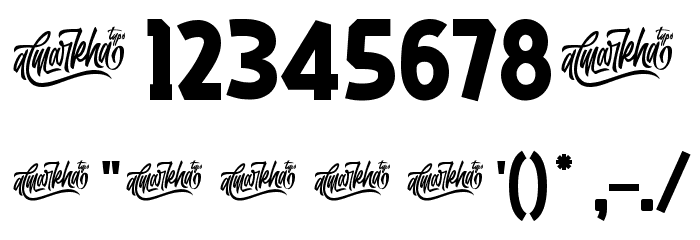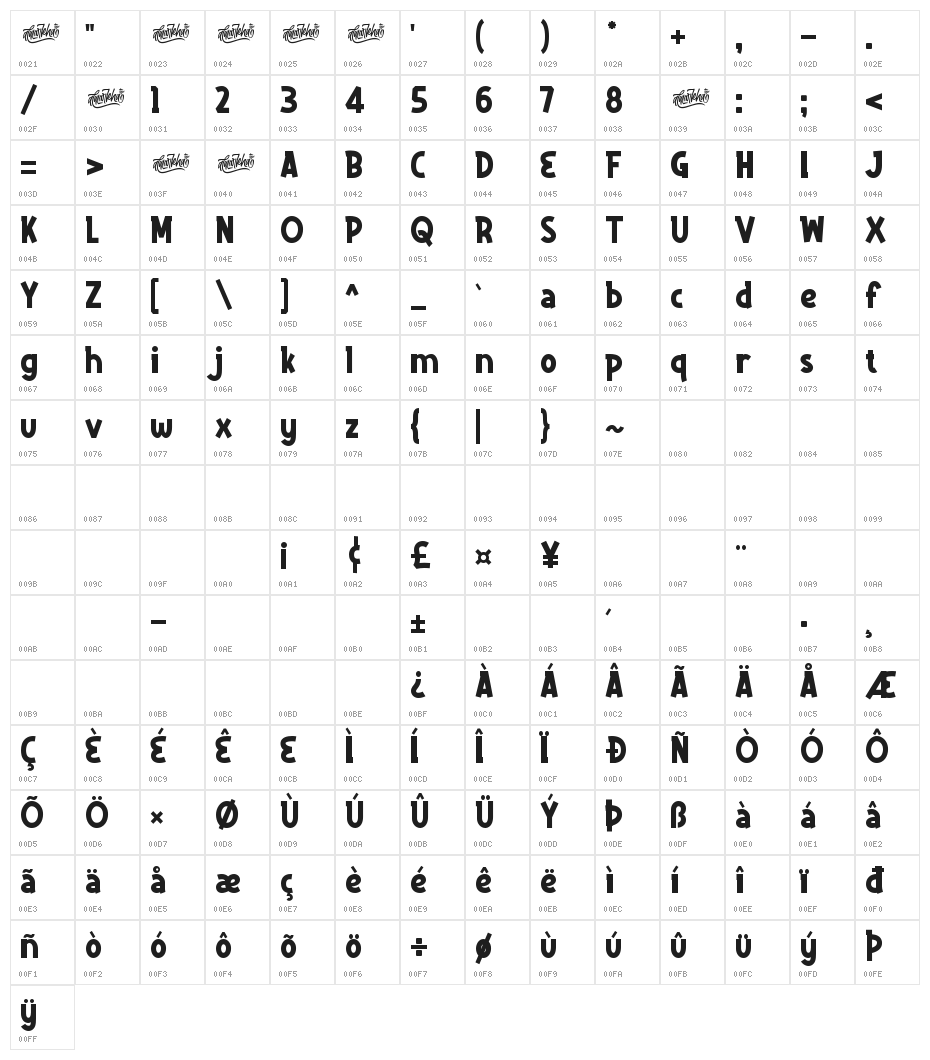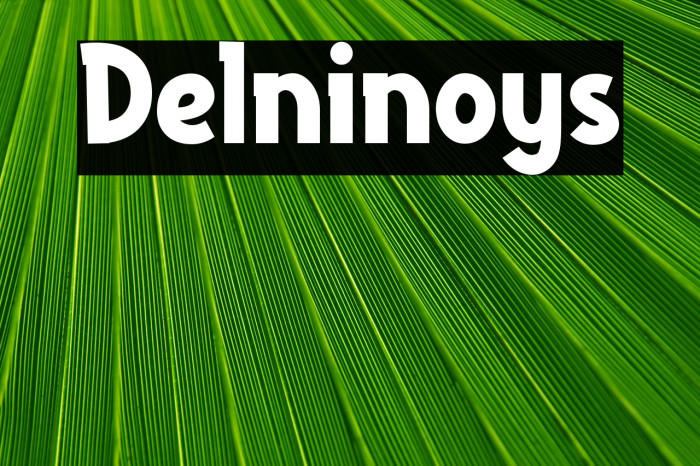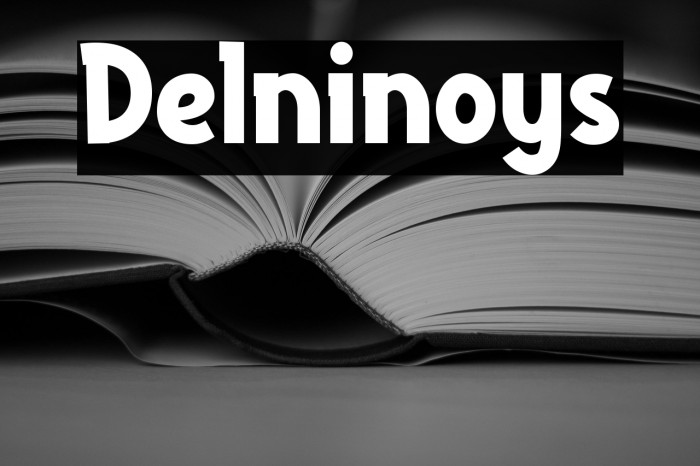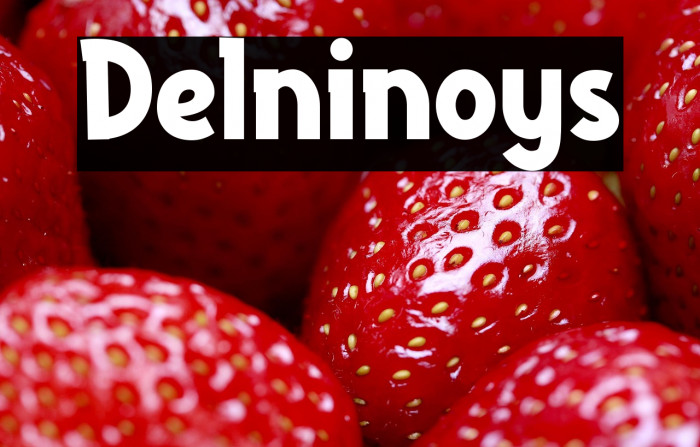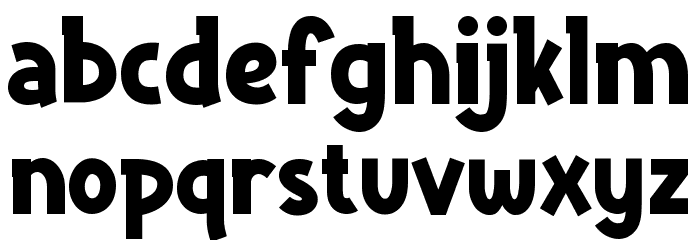
Delninoys Font
Delninoys Description
This font features bold, thick strokes with a strong presence, making it ideal for attention-grabbing designs. The uppercase letters are robust and slightly condensed, while the lowercase letters maintain a consistent weight, offering a harmonious balance. The numerals are equally bold, ensuring readability and impact. The special characters are designed with the same boldness, providing a cohesive look across all elements. This font's style is both modern and versatile, suitable for a variety of creative projects.
| Proposed Projects | Ideal for headlines, posters, branding, and advertising materials. |